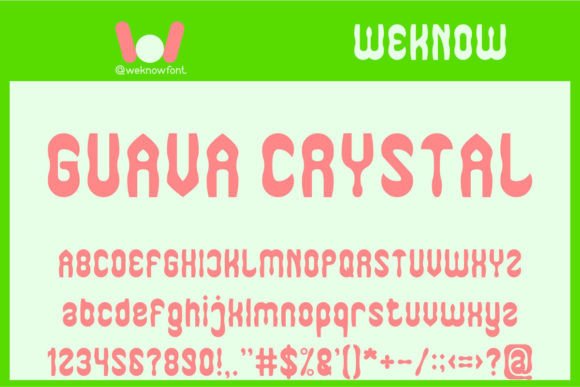
Guava Crystal Font for Editorial Design
In the world of digital publishing and print media, typography is the silent ambassador of your brand. As content creators, bloggers, and editorial designers, we understand that a typeface does more than display words; it sets the emotional stage for the reader before they process a single sentence. Guava Crystal is a fancy display font that has recently captured attention in the design community for its unique ability to balance decorative flair with structural integrity. For those of us crafting magazine layouts, ebook covers, or newsletter headers, this typeface offers a distinct visual voice that can elevate publication branding without sacrificing professional polish.
Defining the Visual Personality of Guava Crystal
Guava Crystal falls squarely into the display category, but it avoids the chaotic illegibility that often plagues overly ornate scripts. Its character set features elegant curves and refined details that suggest luxury, creativity, and warmth. Unlike a standard serif font which prioritizes uniformity for long-form reading, or a geometric sans serif font which leans toward corporate neutrality, Guava Crystal possesses a handcrafted personality. It feels intentional and bespoke, making it an excellent choice for creative fonts needed in lifestyle, fashion, culinary, and wellness niches.
The typeface carries a modern typography aesthetic while retaining classic proportions. This duality allows it to function effectively across various media. Whether you are designing a glossy magazine spread or a mobile-responsive blog post, the letterforms maintain their shape and impact. The "crystal" aspect of its name hints at clarity and precision within the ornamentation, ensuring that even at smaller headline sizes, the characters remain distinct and recognizable.
Strategic Applications in Editorial Layouts
For publishers and content strategists, knowing where to deploy a premium font is just as important as selecting it. Guava Crystal excels in high-impact zones where reader engagement is paramount. It is not designed for body copy; rather, it serves as an anchor point in your visual hierarchy. Consider using it for:
When used in these contexts, Guava Crystal acts as a visual cue, telling the reader that this specific element is special, curated, or significant. It supports the editorial structure by differentiating navigational or highlight elements from the main informational content.
Mastering Font Pairing for Readability
A common pitfall in editorial design is pairing two display fonts that compete for attention. To maintain readability and a well-structured layout, Guava Crystal requires a supportive partner. Because it is a fancy display font with significant personality, it pairs best with understated, highly legible typefaces for body text.
For a traditional editorial look, combine Guava Crystal with a clean serif font like Merriweather, Lora, or Georgia. The contrast between the decorative headings and the structured body copy creates a sophisticated tension that is pleasing to read. This combination works exceptionally well for wedding guides, recipe ebooks, and literary magazines where a sense of heritage and quality is desired.
Alternatively, for a more contemporary or tech-forward publication, pair it with a neutral sans serif font such as Inter, Montserrat, or Open Sans. This approach strips away excess nostalgia and grounds the design in modern utility. It is particularly effective for newsletters, course materials, and business blogs where clarity must take precedence over pure decoration. The key is to let Guava Crystal be the star of the show in headlines while your body font handles the heavy lifting of information delivery.
Technical Considerations for Screen and Print
As creators who publish across multiple formats, we must consider how typography translates from screen to paper. Guava Crystal’s intricate details require careful handling during export and layout. For web use and digital newsletters, ensure you are using adequate font sizes. Display fonts often need to be set larger than body text not just for emphasis, but to preserve the integrity of thin strokes and fine serifs on lower-resolution screens.
When designing for print materials like books, zines, or packaging design, pay close attention to tracking and kerning. Fancy display fonts often have unique spacing requirements to prevent letters from colliding or appearing disconnected. Utilizing included alternates and ligatures can significantly improve the flow of specific word combinations, making your logotype or headline look custom-drawn rather than typed. Always test your layouts at actual size before finalizing files for commercial printing to ensure the delicate features of the typeface reproduce crisply.